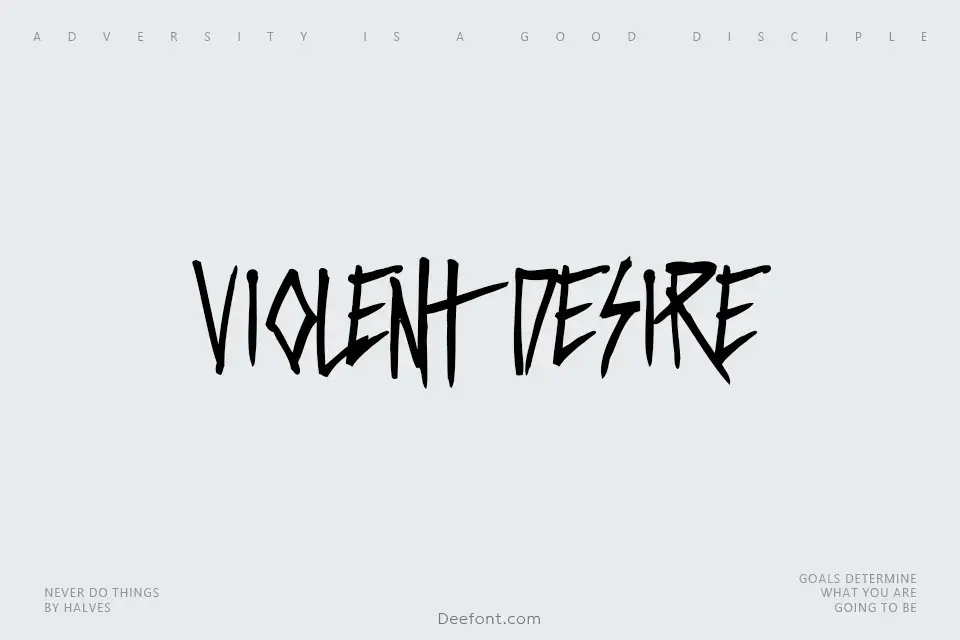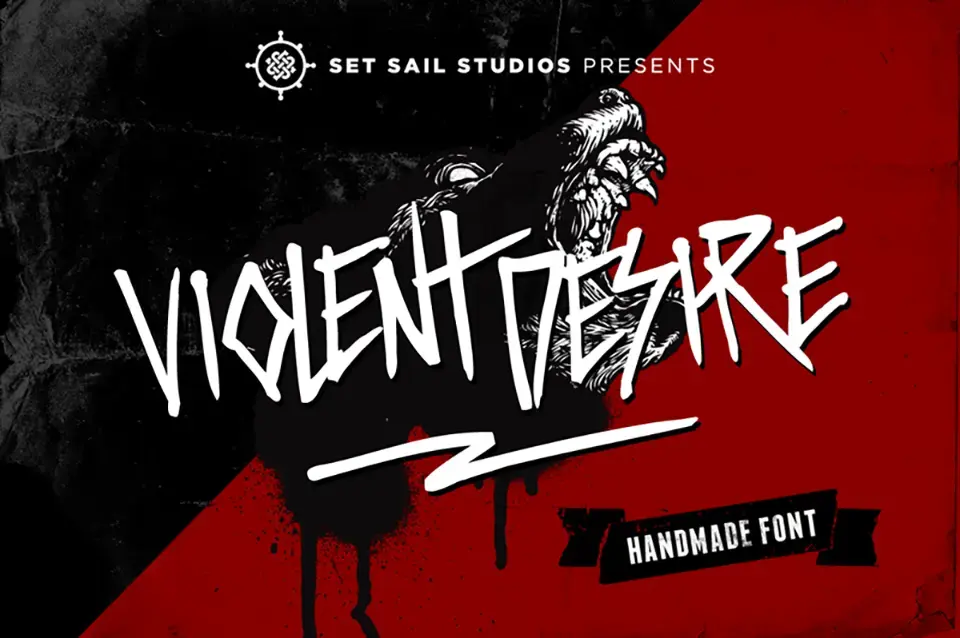
Violent Desire Font
Violent Desire is an edgy hand-made script font that delivers powerful visual impact with its sharp, angular letterforms and distinctive marker-like strokes. This all-caps handwritten typeface excels at commanding attention in movie posters, album covers, punk rock aesthetics, and bold headline designs. With its raw, energetic character and rebellious spirit, it’s ideal for designers seeking dramatic display typography that stands out on posters, packaging, and creative advertisements. The font includes 233 glyphs with alternates and works perfectly for both personal and professional design projects requiring edgy, contemporary lettering.